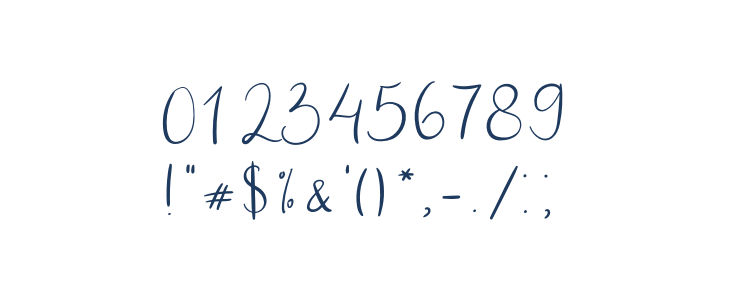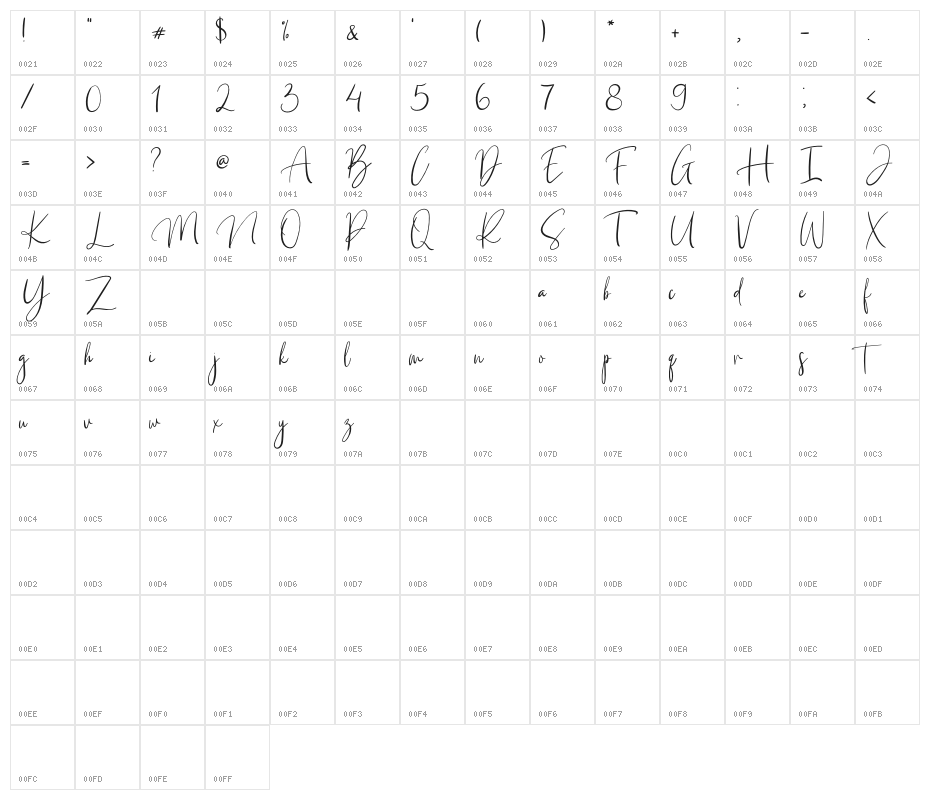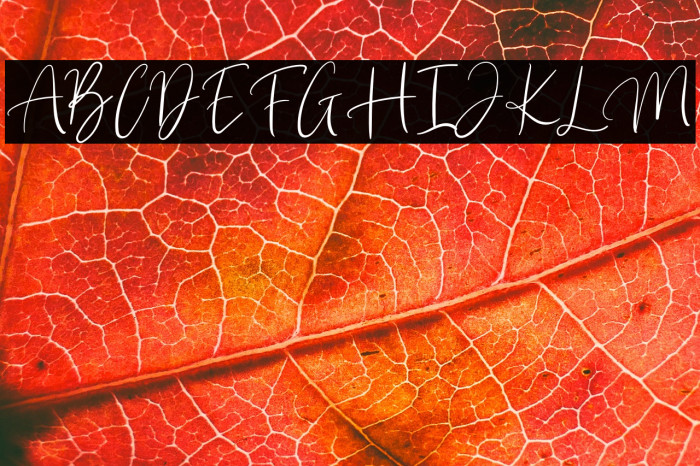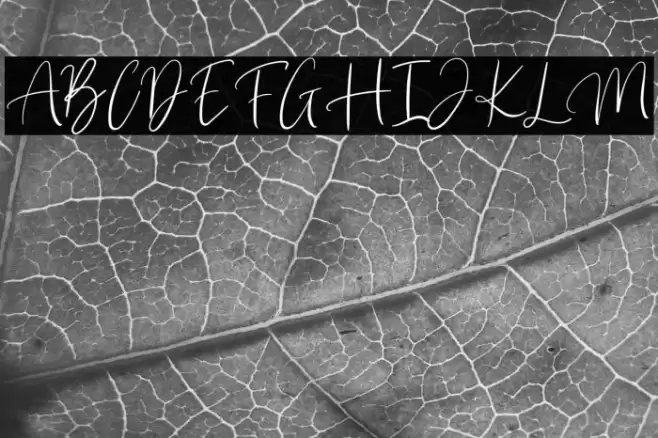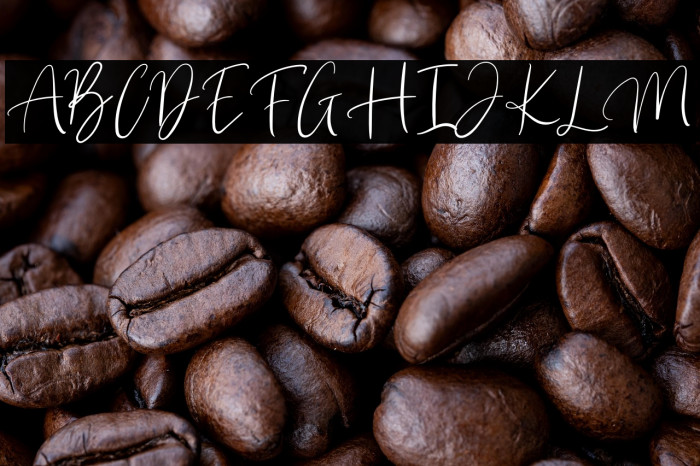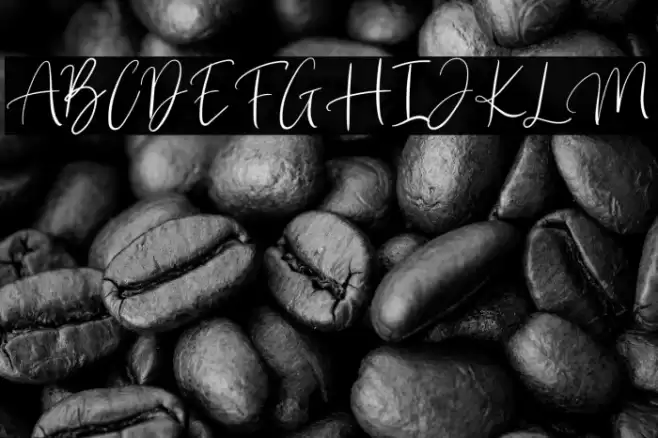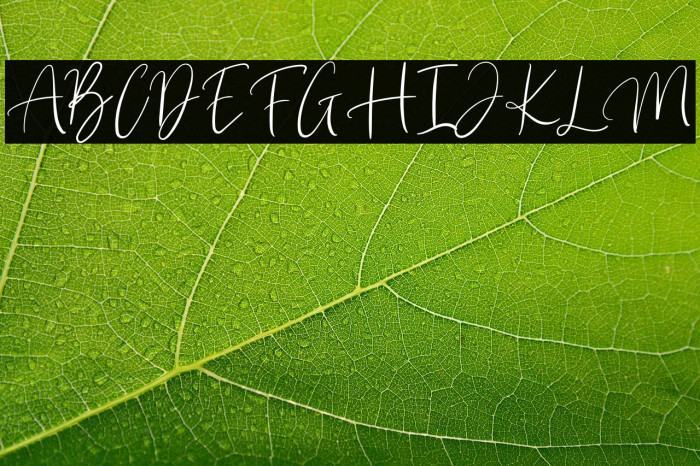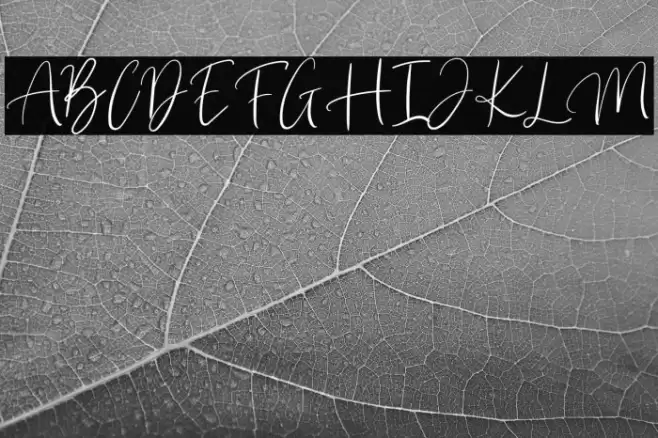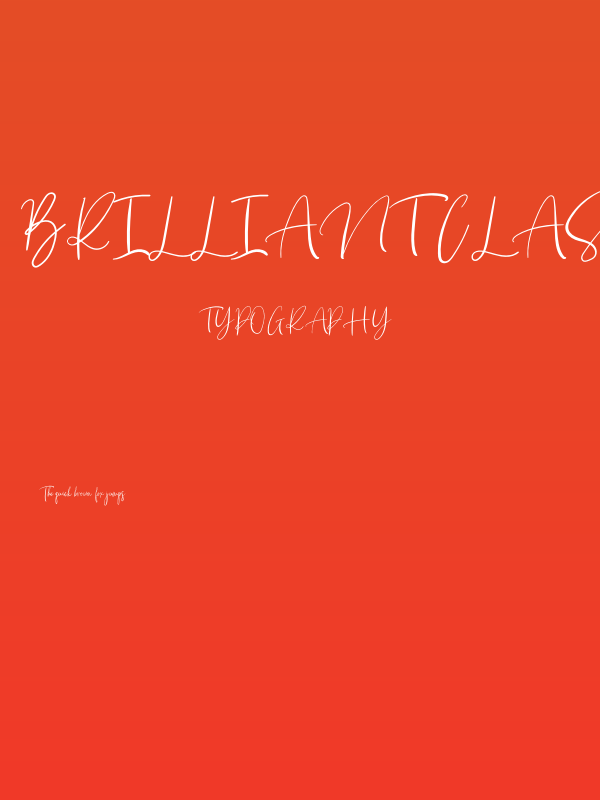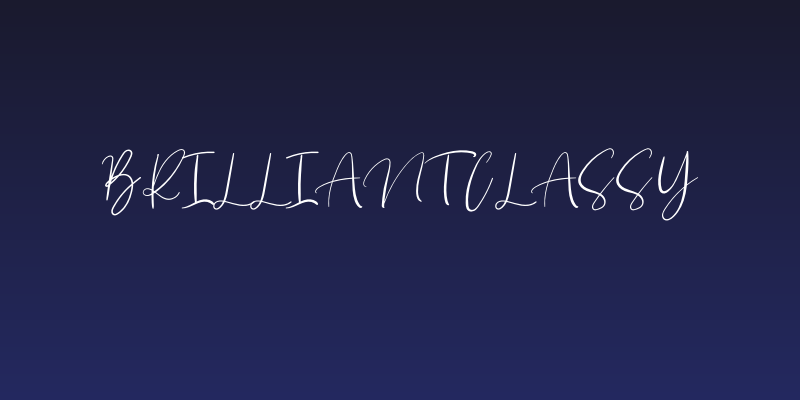
Brilliant Classy Font
Brilliant Classy Description
This font exudes a sophisticated and elegant style, characterized by its flowing, cursive script that mimics the fluidity of handwriting. The uppercase letters are tall and graceful, with sweeping lines that add a touch of drama and flair. The lowercase letters maintain a consistent style, with loops and curves that enhance the overall aesthetic. The numerals are clear and stylish, complementing the alphabet with their sleek design. Special characters are thoughtfully crafted, maintaining the font's cohesive look. This font is ideal for projects that require a personal, yet refined touch.